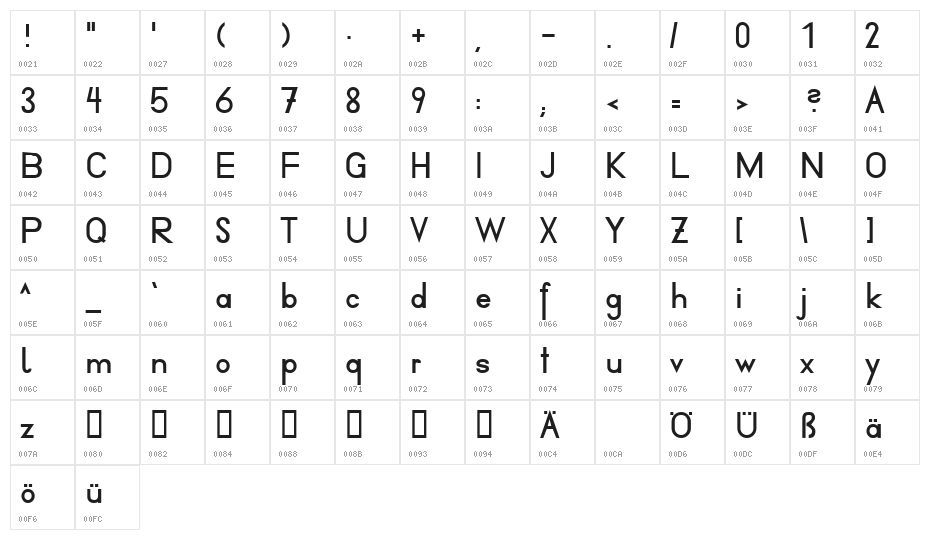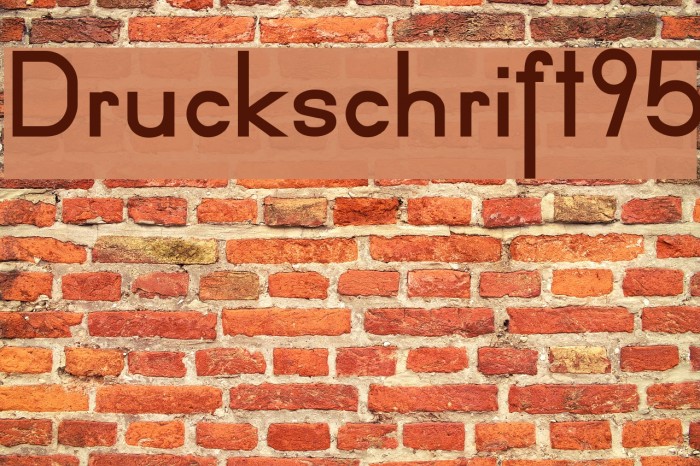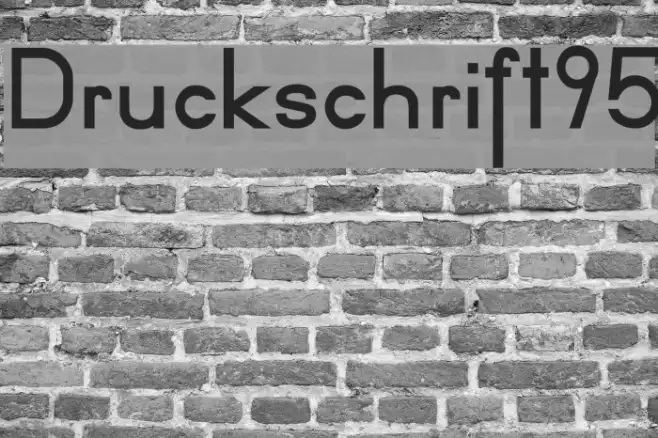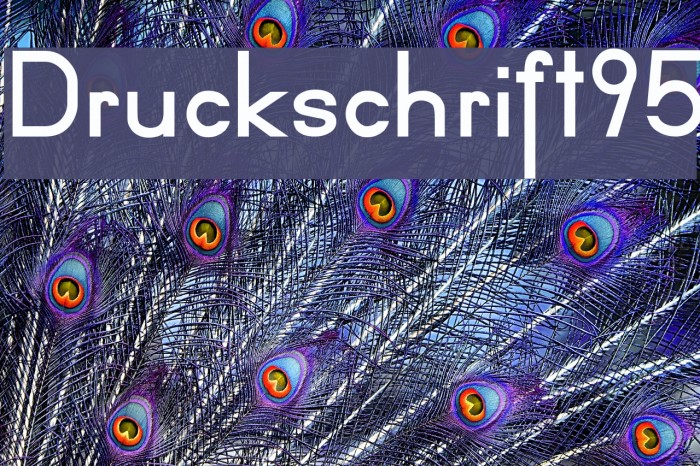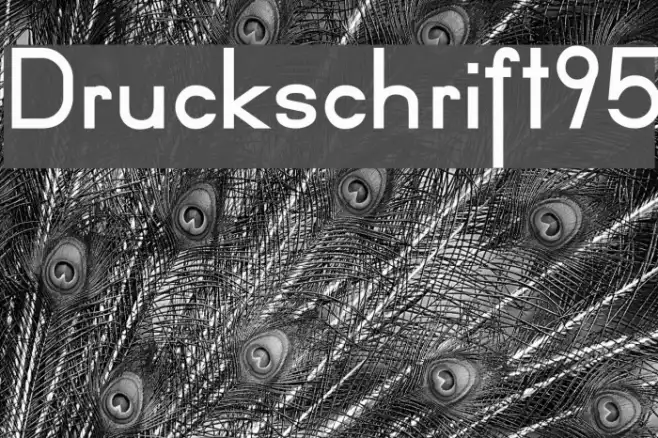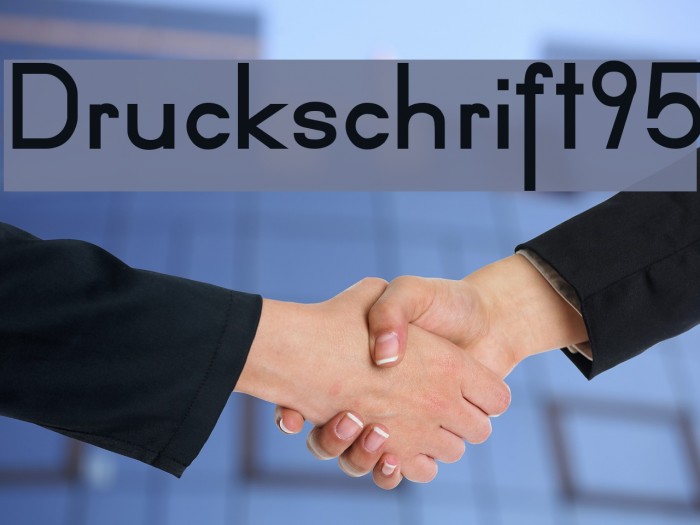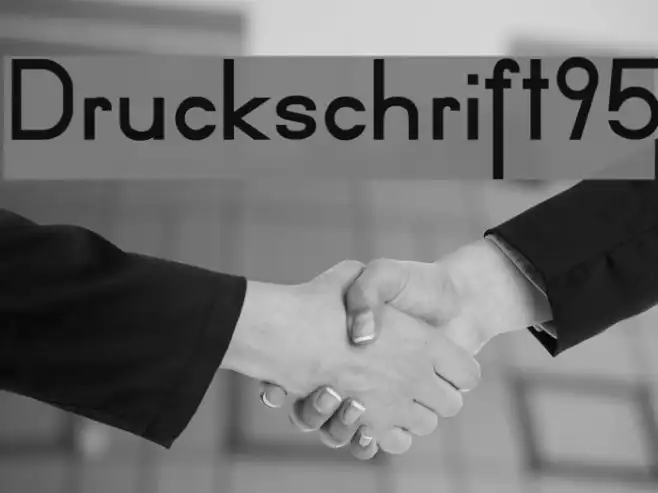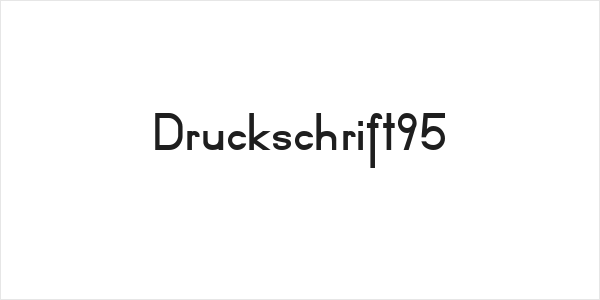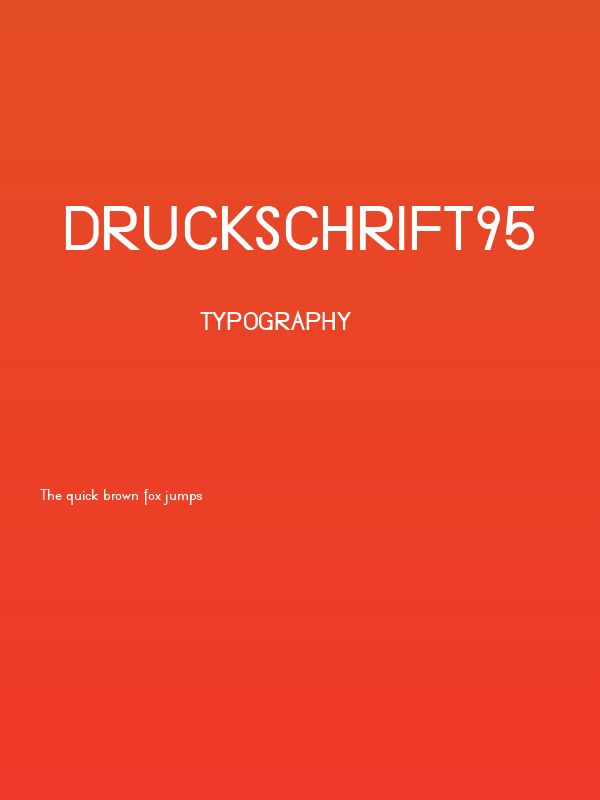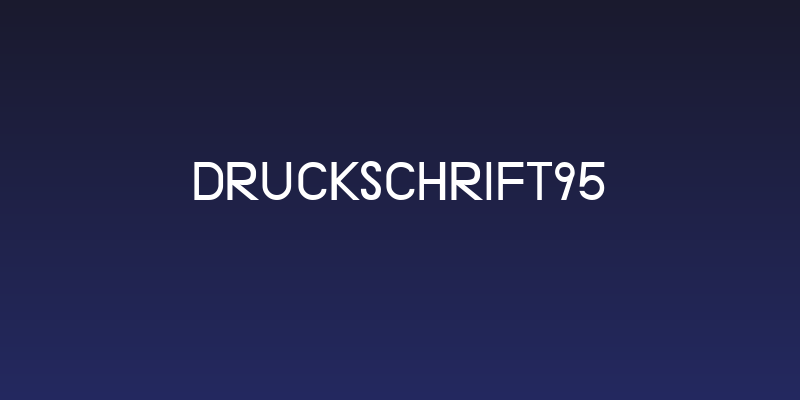
Druckschrift95 Font
Druckschrift95 Description
This font features a clean and modern sans-serif design with uniform stroke widths, providing a sleek and professional appearance. The uppercase and lowercase letters are well-proportioned, with a slight geometric influence that enhances readability. The numerals are distinct and clear, making them suitable for various applications. The special characters are designed to complement the overall style, maintaining consistency across the character set. This font's simplicity and clarity make it versatile for both digital and print media.